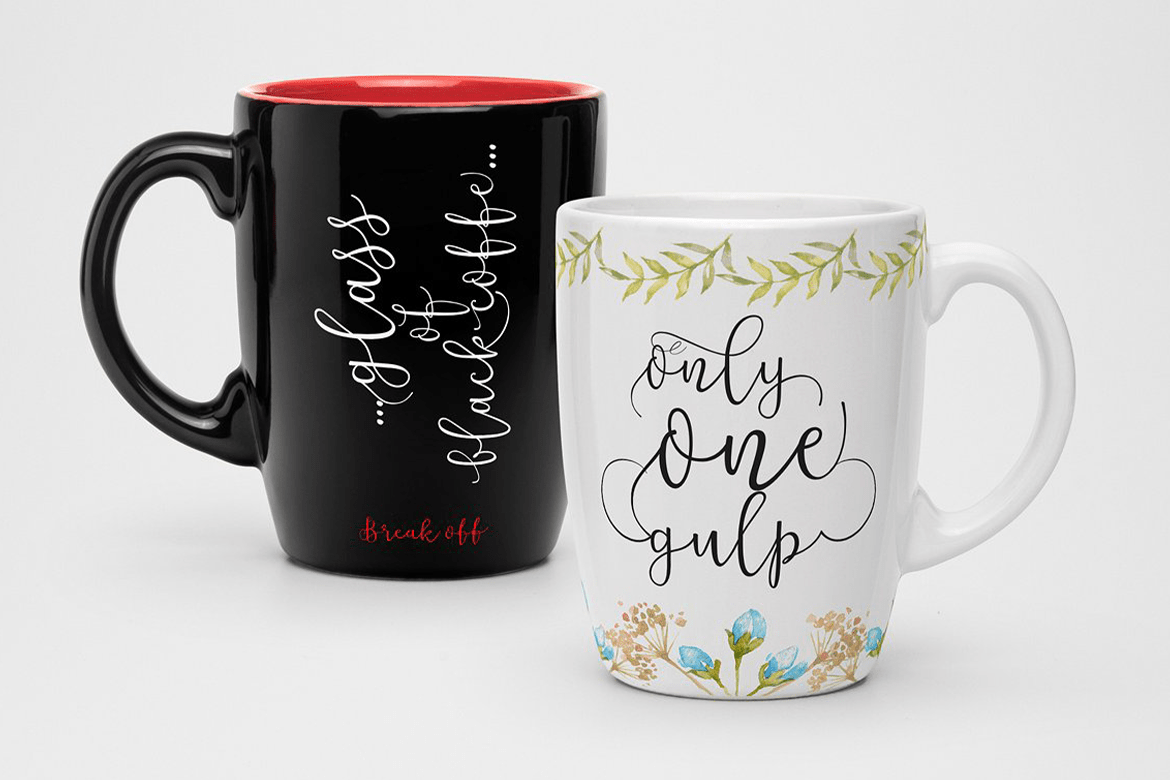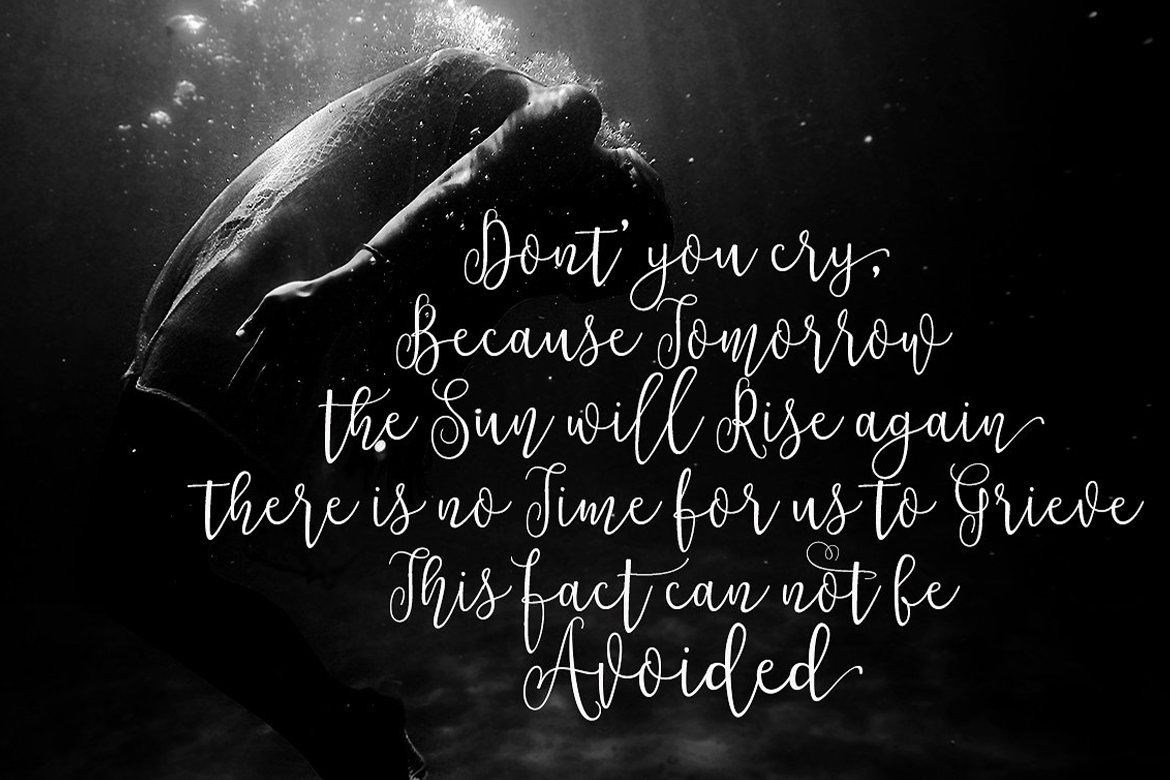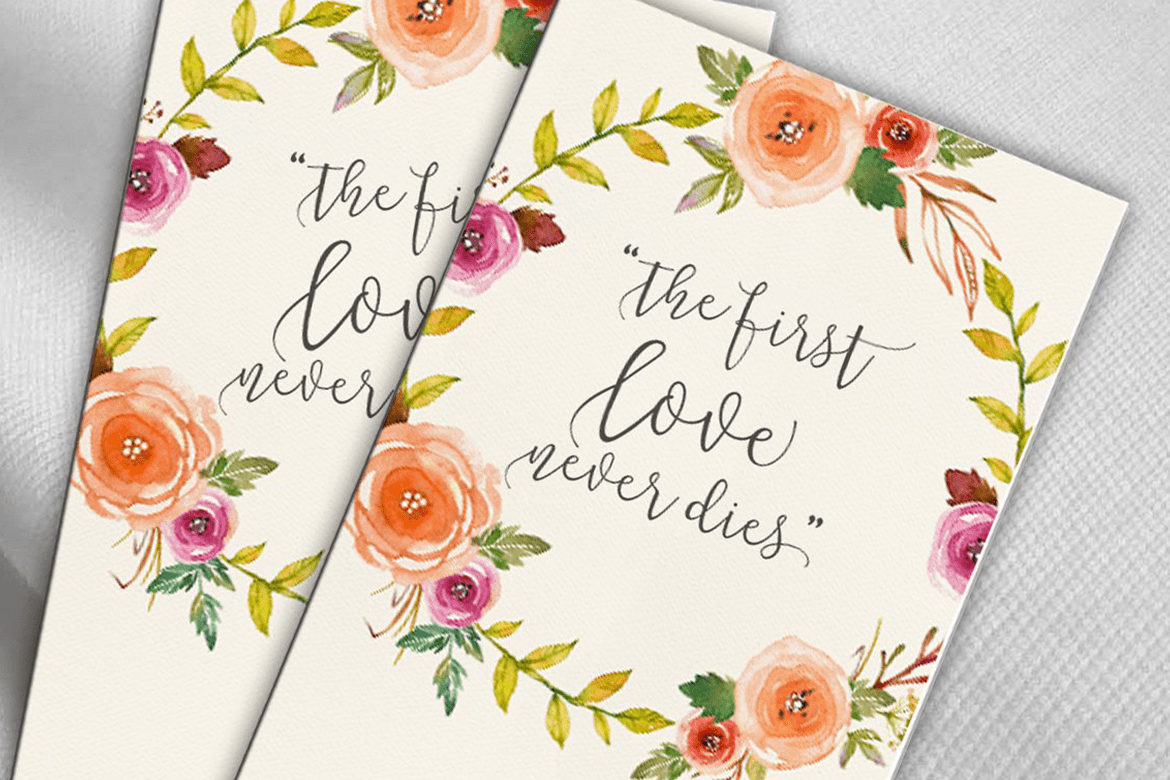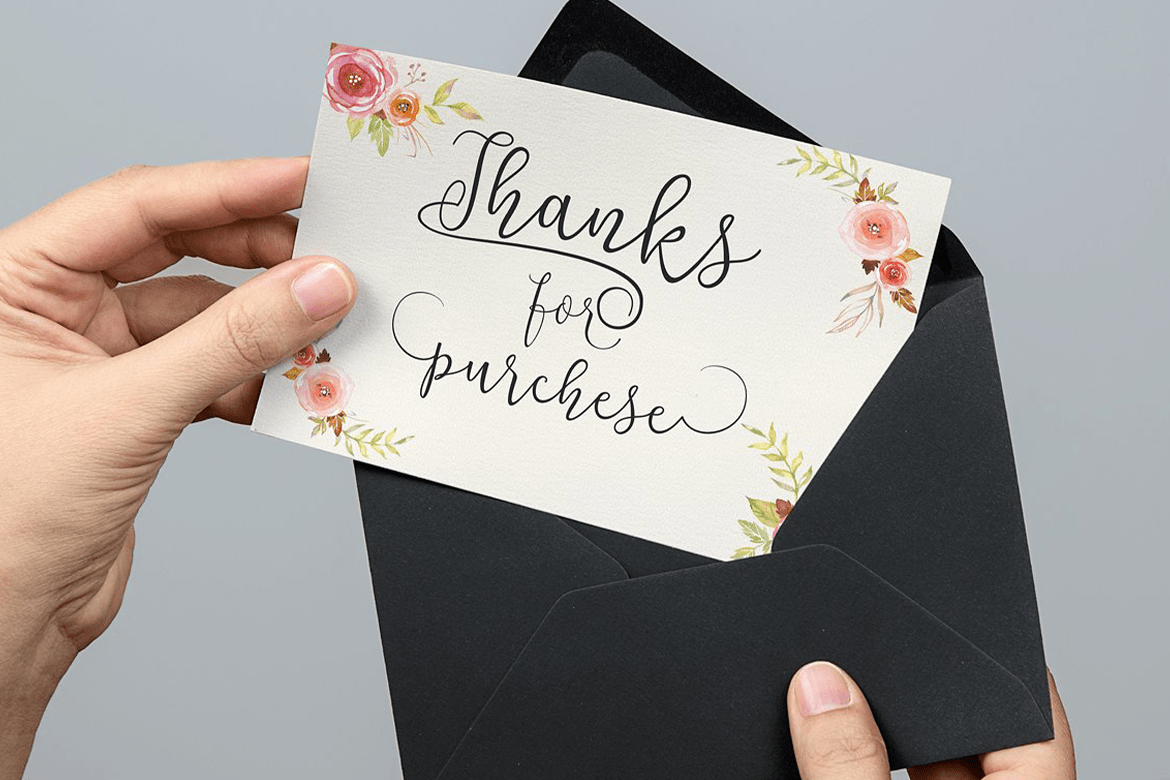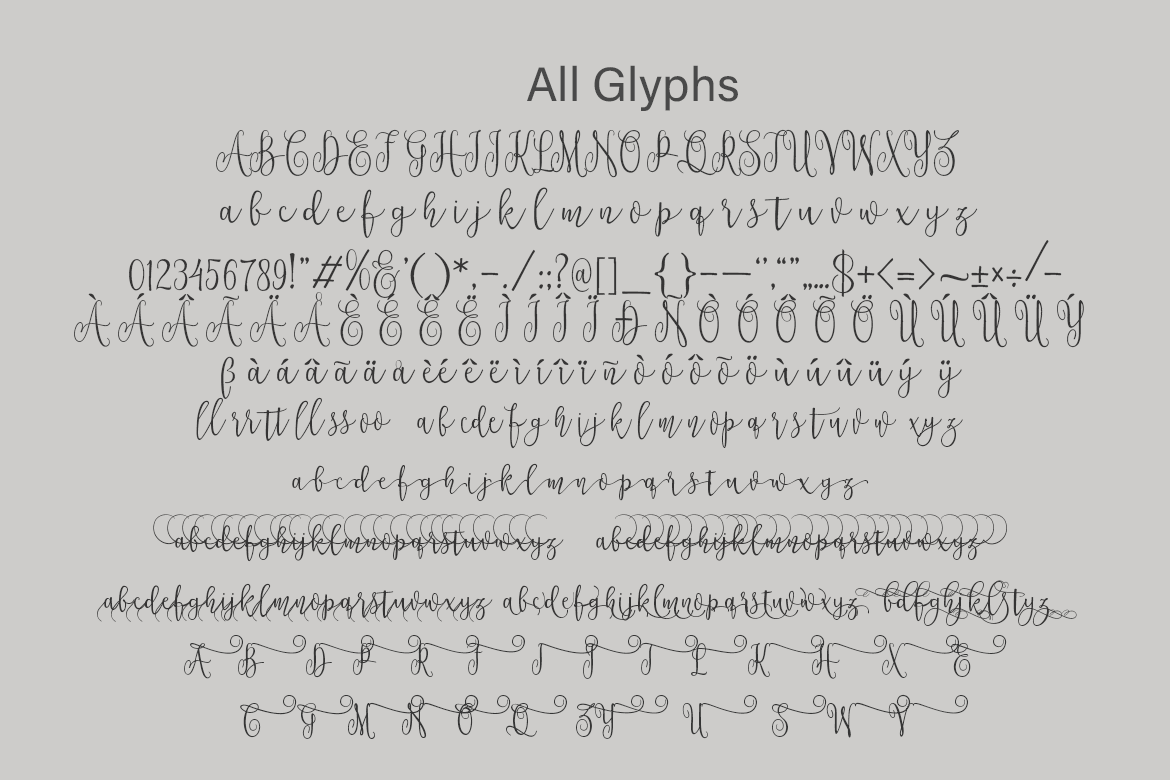
Notulen Regular
Font Family by Groen
Buy NowNotulen is is a calligraphy font, has written a model dancing, so beautiful and unique, it is a model of modern calligraphy typefaces, in combination with a calligraphy writing style.
The Features of this fonts is:
- Swash Alternates
- Standart ligatures
- Stylistic Alternates
- Stylistic sets